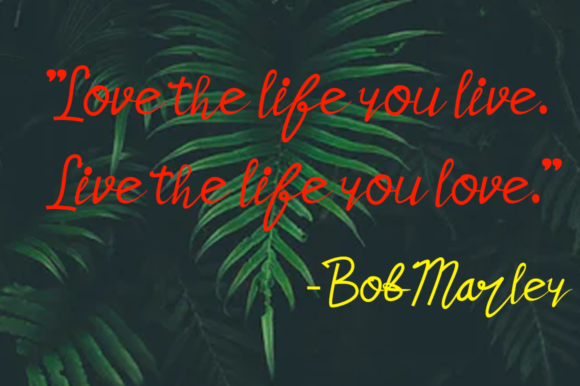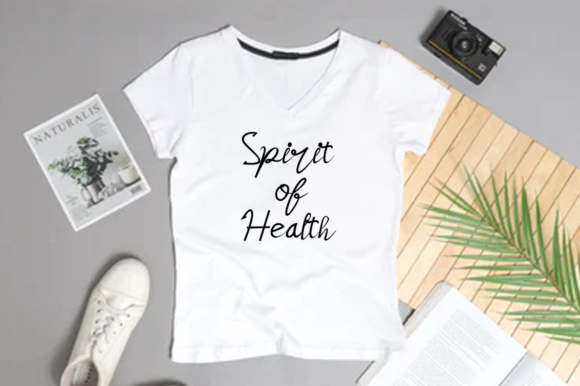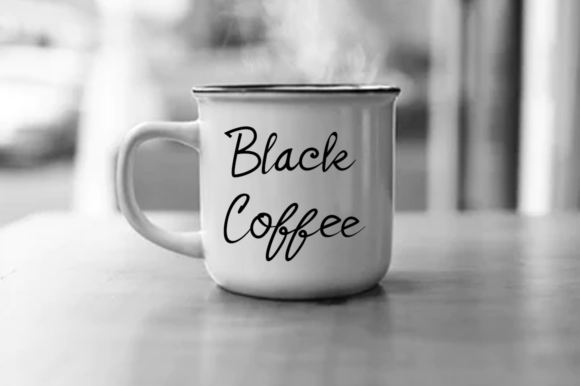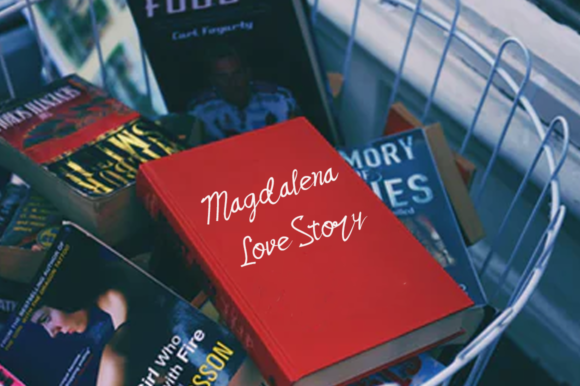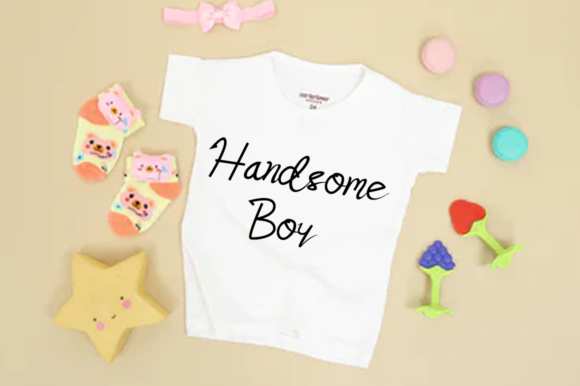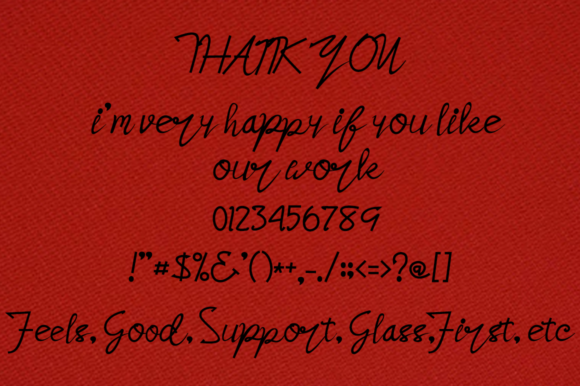
The Elegant Attambua Font: A Designer’s Delight
I’ll never forget the time I was working on a project for a luxury brand, and I just couldn’t find the right font to match their high-end aesthetic. The client wanted something that exuded elegance and class, but everything I tried seemed to fall flat. That’s when I stumbled upon the Attambua font, and it was love at first sight! 💕
Attambua is a lovely and delicate script font that instantly elevated my design to the next level. Its beautiful, refreshing look was exactly what I needed to impress my client. In this article, I’ll share with you what makes Attambua so special, its features, and how to make the most of it in your designs.
An Honest Review of Attambua Font
What I Love About Attambua ✨
• 💫 Elegant and delicate script style that’s perfect for luxury brands, wedding designs, and high-end projects
• 🌈 Beautifully crafted with attention to detail, making it perfect for designs that require a touch of sophistication
• 📚 Supports multiple languages and features a wide range of glyphs and OpenType features
• ⚠️ Some users may find the font a bit too delicate for certain design applications, such as posters or headlines
• 🤔 Limited availability of bold or condensed versions, which may limit its use in certain design contexts
The Story Behind Attambua Font
Attambua was designed by a team of typographers who wanted to create a font that would bring a touch of elegance and sophistication to any design project. Inspired by traditional calligraphy and modern digital design, Attambua is the result of careful craftsmanship and attention to detail. The font’s name, Attambua, comes from a small village in Indonesia known for its beautiful landscapes and rich cultural heritage.
Q: What is the Attambua font best used for?
A: Attambua is best used for luxury brands, wedding designs, high-end projects, and any design application that requires a touch of elegance and sophistication.
Q: Does Attambua support OpenType features?
A: Yes, Attambua supports OpenType features, including ligatures, stylistic alternates, and glyphs.